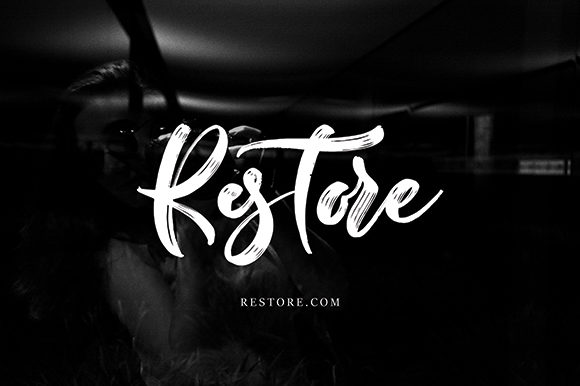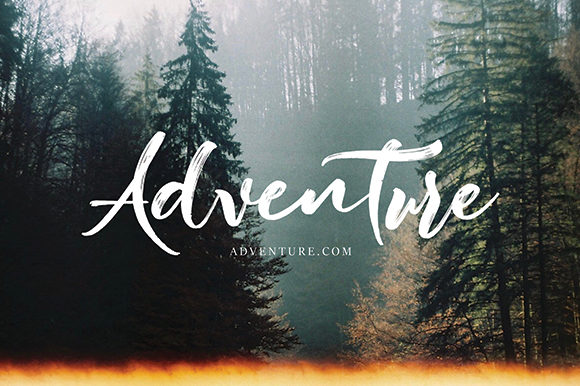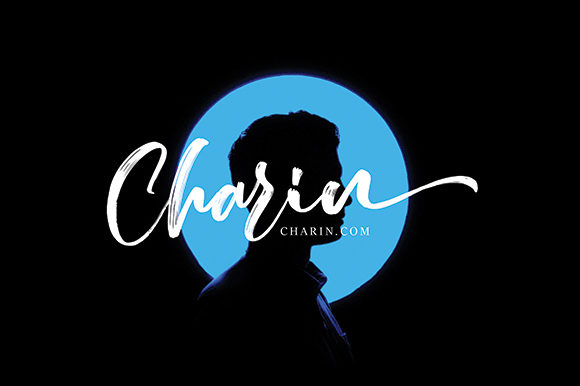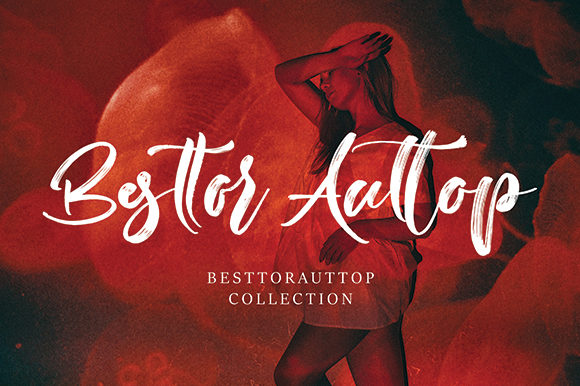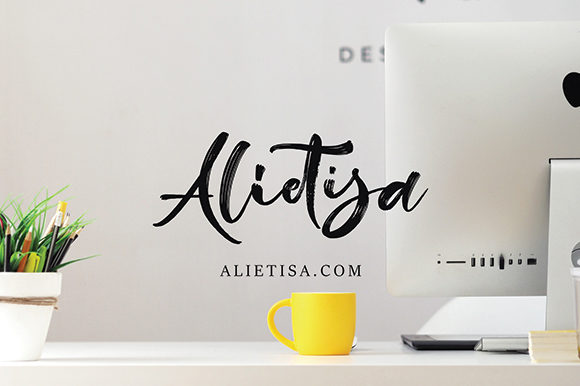
Introduction to Phesttara Font
Remember that moment when you finally find the perfect design element to elevate your creative project? The one that makes everything fall into place and leaves you feeling like a master of your craft? For many designers, that moment comes when they discover a high-quality font that brings their vision to life. For those who have been searching for the perfect script font, we’re excited to introduce you to Phesttara Font – a game-changing design resource that’s about to revolutionize the way you approach typography.
| 👤 Author | Pineungtype & Missinklab |
With its elegant calligraphic influences and contemporary feel, Phesttara Font is the perfect addition to any designer’s toolkit. Whether you’re working on a high-end brand identity or a personal stationery project, this versatile font is sure to impress. And the best part? You can download it for free, making it an accessible design resource for creatives of all levels.
From letterheads and titles to social media graphics and more, Phesttara Font is the perfect way to add a touch of sophistication and style to your designs. With its transparent background and high-quality design, you’ll be able to achieve a professional look that’s sure to make a lasting impression. So why settle for an ordinary font when you can have an extraordinary one? Discover the power of Phesttara Font today and take your designs to the next level!
Key Features of Phesttara Font
- High-quality design resource with a transparent background, ideal for creative projects and presentations.
- Comes in a single weight, making it easy to use and customize for different design needs.
- Designed to provide a clean and modern aesthetic, perfect for a wide range of creative projects and design applications.
Honest Review: Phesttara Font
As a designer, I’m always on the lookout for high-quality design resources to elevate my creative projects. The Phesttara Font is one such gem that I’d like to share with you. This font has a unique aesthetic that’s perfect for designers who want to add a touch of sophistication to their work.
- ✨ The Phesttara Font has a transparent background, making it easy to use on various backgrounds without any visual clutter.
- ✨ The font is highly customizable, allowing designers to experiment with different styles and effects.
- ⚠️ The Phesttara Font may not be suitable for projects that require a more formal or traditional look.
- ⚠️ Some users may find the font’s unique style too avant-garde or unconventional.
Overall, I’m impressed with the Phesttara Font’s versatility and high quality. It’s an excellent addition to any designer’s toolkit, especially for creative projects that require a touch of elegance and sophistication.
Experiment with different font sizes, colors, and styles to create a unique design. Use the Phesttara Font in combination with other design elements, such as images and shapes, to create a visually appealing design. Take advantage of the transparent background feature to create a subtle and elegant design.
The Phesttara Font is commonly used in creative projects, such as graphic design, digital art, and typography. It is a popular design resource among designers and artists who value high-quality and versatility. The Phesttara Font is ideal for creating presentations, documents, and other visual materials that require a professional and elegant look.